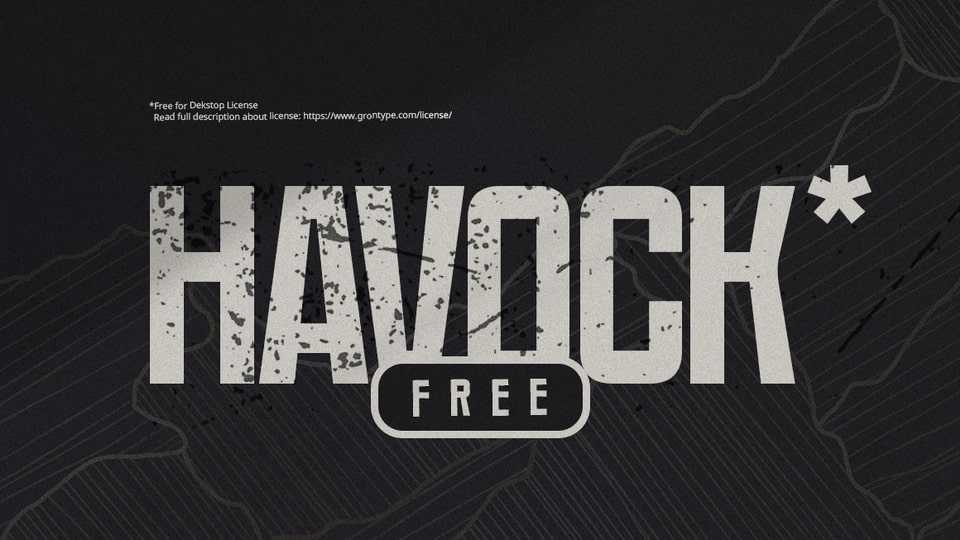
Download Havock font, a bold, semi-condensed sans serif typeface that delivers a modern and commanding presence. With clean lines and a robust structure, Havock strikes the perfect balance between strength and style.